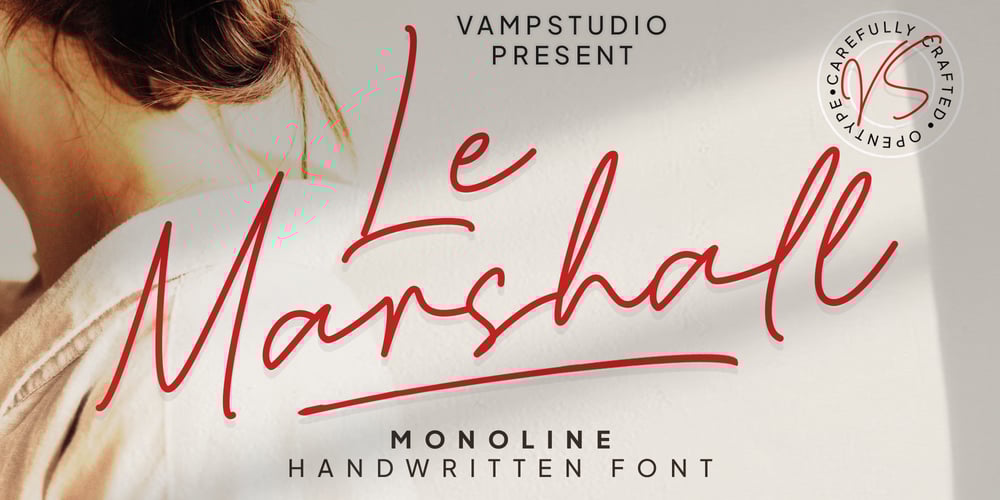
Le Marshall Font Family was designed by Irfan syah and published by Vampstudio. Le Marshall contains 1 styles and family package options. Le Marshall Script Style – a new modern & fresh script with a handwritten and script style make this font looks elegant, natural, stylish and perfect for any awesome projects that need handwriting taste.Le Marshall would perfect for photography, watermark, social media posts, advertisements, logos & branding, invitation, product designs, label, stationery, wedding designs, product packaging, special events or anything that need handwriting taste